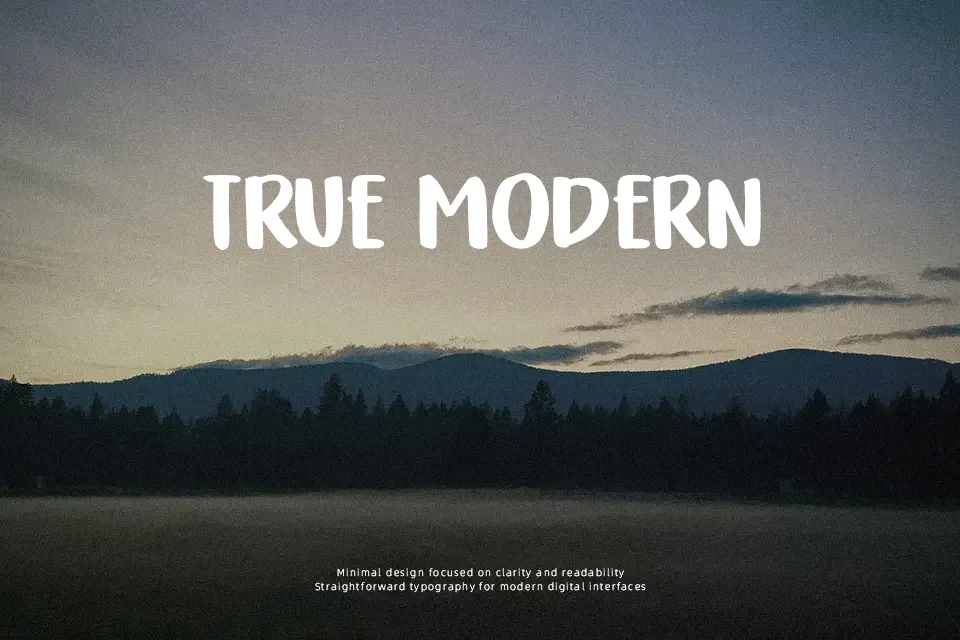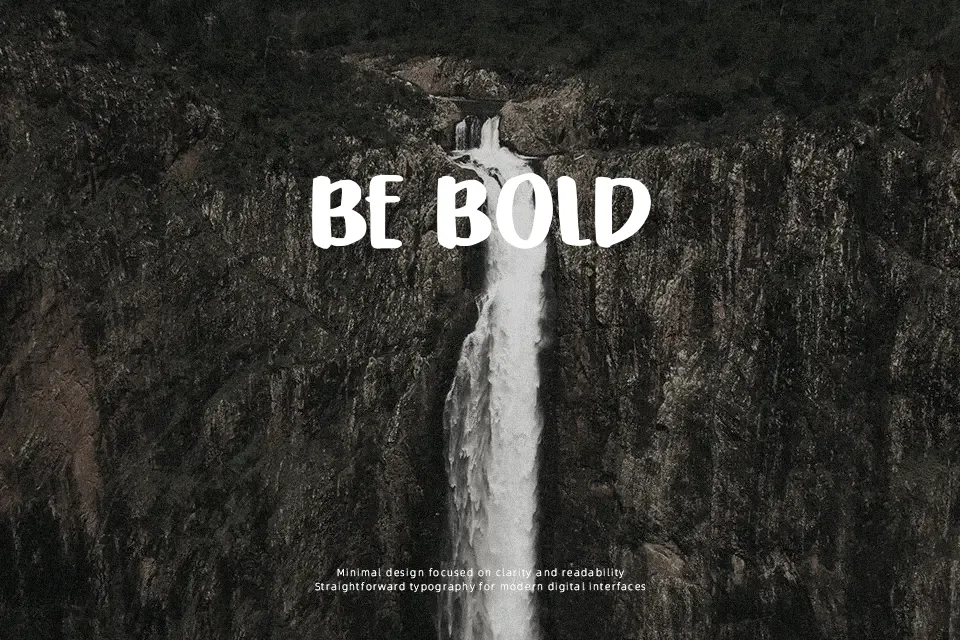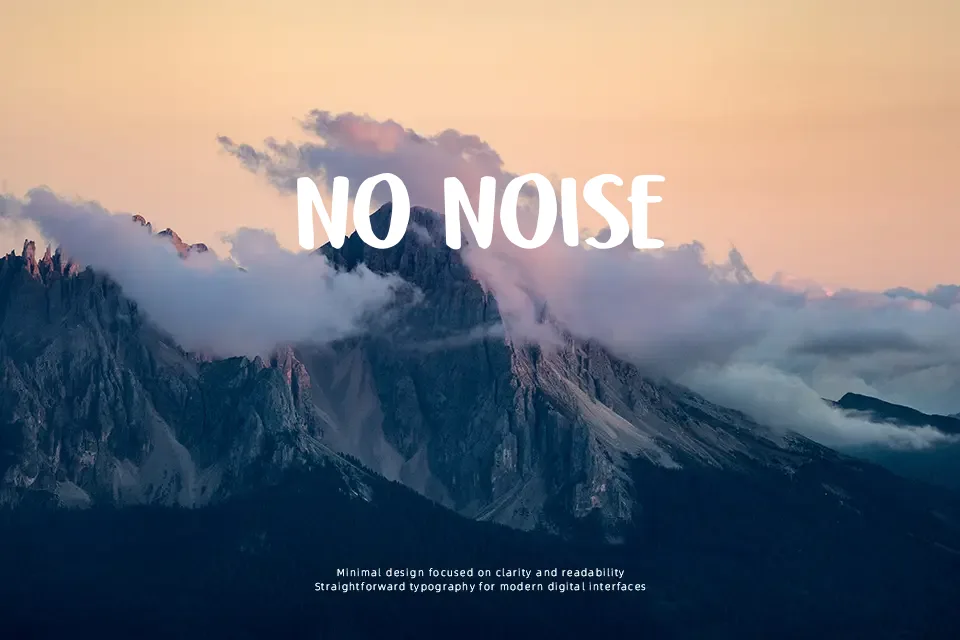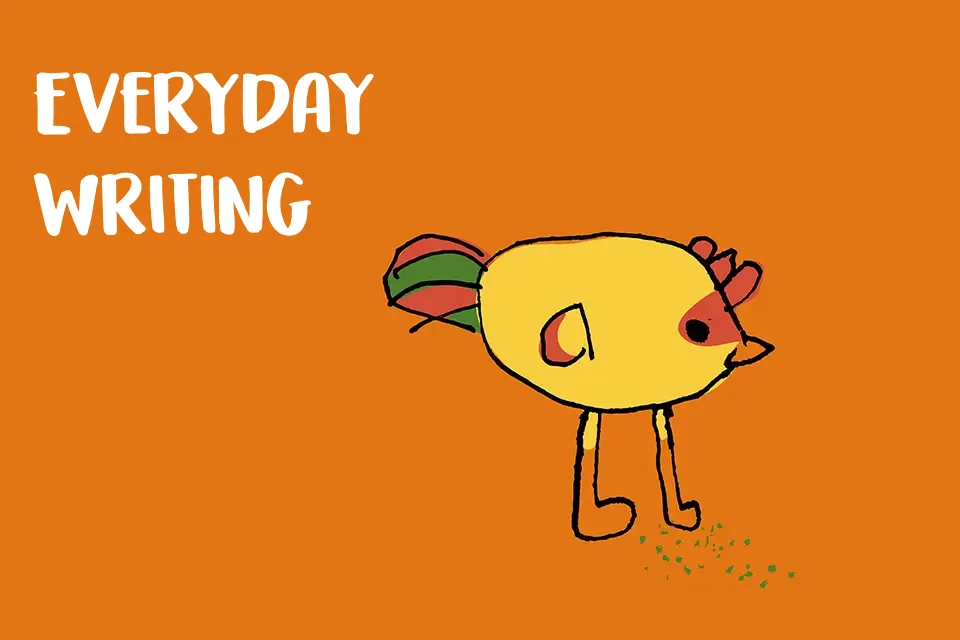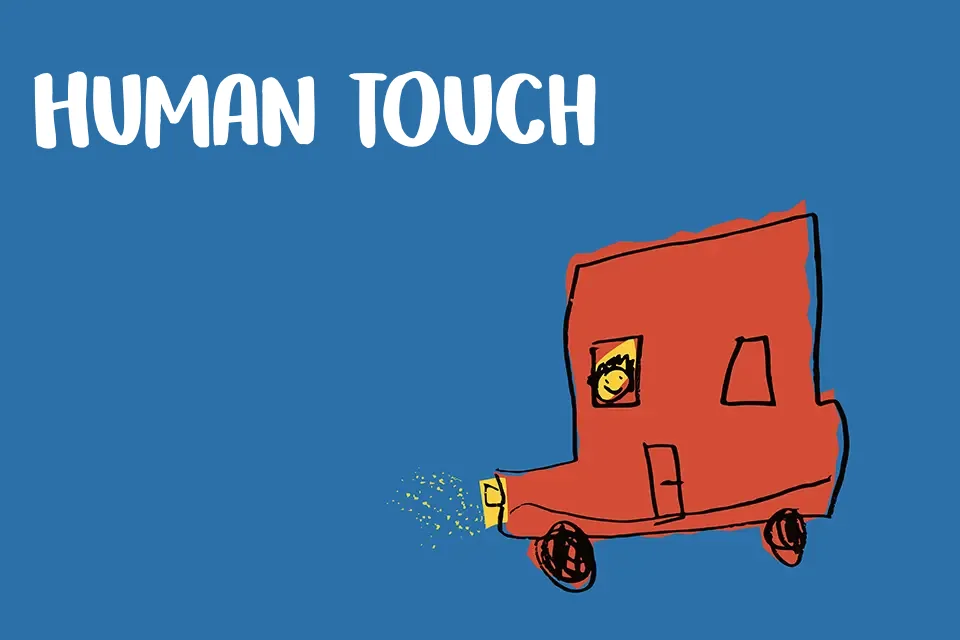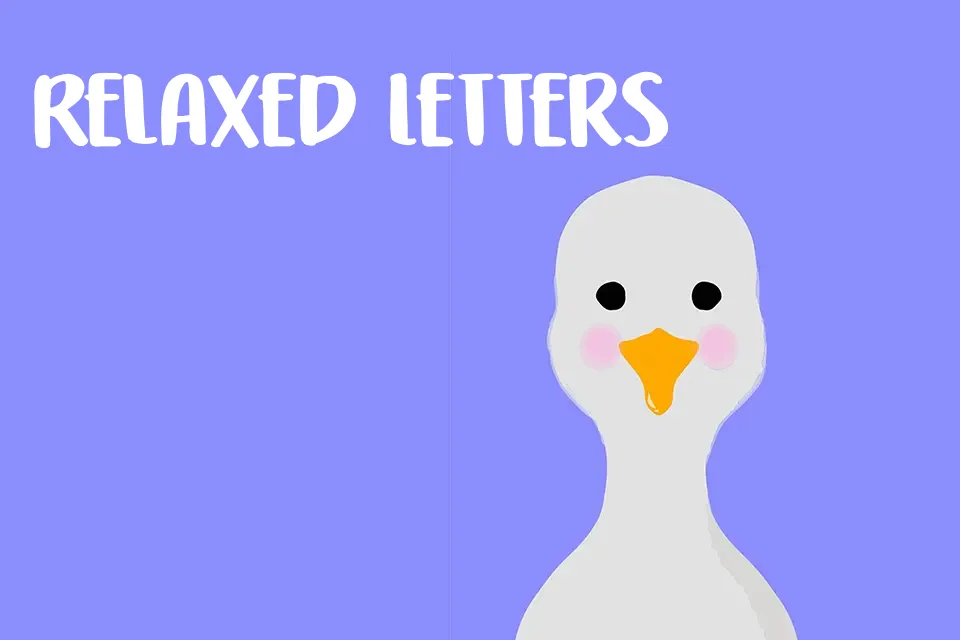
DK Honeyguide Font
Designed by Hanoded
DK Honeyguide Font has thick, slightly bouncy uppercase letters with rounded ends, irregular curves, and loose handcrafted spacing that keeps it casual rather than polished. The structure feels friendly and decorative, with enough weight to stand up well on packaging, poster headlines, classroom materials, or playful brand labels. It works best when the layout wants warmth and a handmade tone without drifting into a messy brush look. I would use it for short, bold wording where personality matters more than precision. It starts to struggle in tighter editorial settings, formal branding, or any line that needs clean rhythm and easy reading at smaller sizes.
snack packaging titles
kids event posters
playful product labels
cheerful social graphics
long reading passages
formal corporate branding
small interface text
Perfect for branding, headline, and kids, with a creative and decorative style.